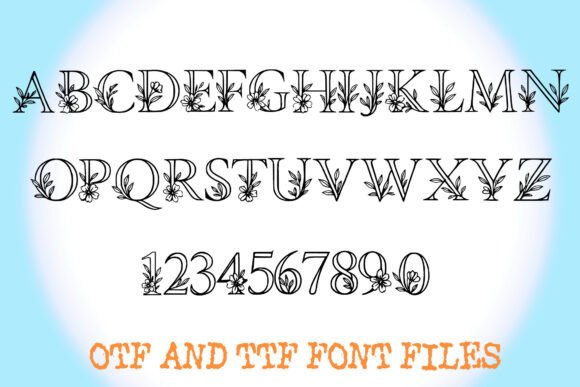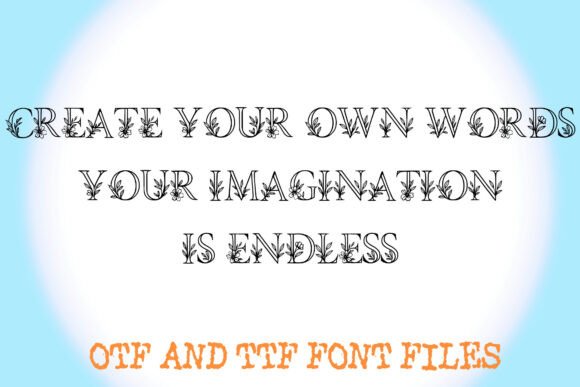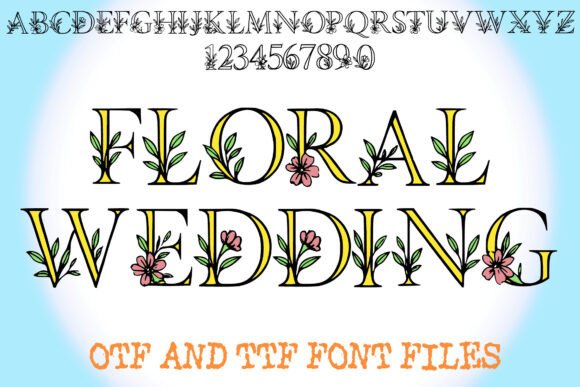
Introducing Floral Wedding Font: The Perfect Blend of Elegance and Botanical Charm
Are you a designer or crafter looking for a unique and captivating font to elevate your wedding-related projects? Look no further than the stunning Floral Wedding Font. This beautifully detailed decorative serif font is adorned with hand-drawn flowers and leaves, making it the perfect choice for wedding invitations, greeting cards, garden-themed projects, and feminine branding.
A Classic Elegance with a Botanical Twist
Floral Wedding Font combines classic elegance with botanical charm to create an enchanting and romantic typeface. The font’s decorative serifs are intricately designed with hand-drawn flowers and leaves, adding a touch of whimsy and playfulness to any project. Whether you’re designing a wedding invitation, a greeting card, or a garden-themed project, this font is sure to impress.
Perfect for Wedding-Related Projects
Floral Wedding Font is specifically designed with wedding-related projects in mind. Its elegant and romantic design makes it perfect for:
- Wedding invitations: Make a stunning first impression with beautifully designed wedding invitations that set the tone for the big day.
- Greeting cards: Add a touch of elegance and sophistication to your greeting cards, perfect for special occasions such as anniversaries, bridal showers, and baby showers.
- Wedding stationery: Create a cohesive look for your wedding stationery, including programs, place cards, and menus.
Feminine Branding and Garden-Themed Projects
Floral Wedding Font is not just limited to wedding-related projects. Its feminine and elegant design makes it perfect for:
- Feminine branding: Add a touch of elegance and sophistication to your brand with a custom logo or typography that reflects your brand’s personality.
- Garden-themed projects: Create beautiful garden-themed projects, such as garden party invitations, garden labels, and gardening blogs.
Key Features of Floral Wedding Font
Here are some of the key features that make Floral Wedding Font a standout choice for designers and crafters:
- Beautifully detailed decorative serif font
- Adorned with hand-drawn flowers and leaves
- Perfect for wedding invitations, greeting cards, garden-themed projects, and feminine branding
- Combines classic elegance with botanical charm
- Enchanting and romantic typeface
Tips for Using Floral Wedding Font
Here are some tips for getting the most out of Floral Wedding Font:
- Use it as a headline font to add a touch of elegance and sophistication to your project.
- Pair it with a simpler font to create a beautiful contrast and add visual interest to your project.
- Experiment with different colors and textures to add depth and dimension to your project.
Floral Wedding Font is a stunning decorative serif font that combines classic elegance with botanical charm. Perfect for wedding-related projects, feminine branding, and garden-themed projects, this font is sure to impress. With its beautifully detailed design and enchanting romantic typeface, Floral Wedding Font is a must-have for designers and crafters looking to add a touch of elegance and sophistication to their projects.